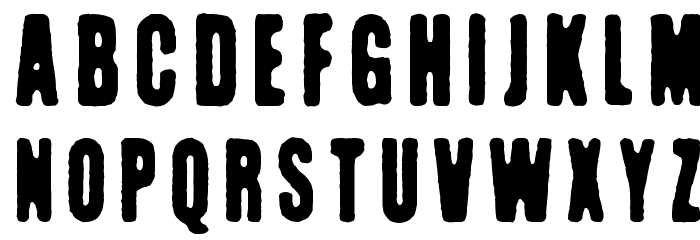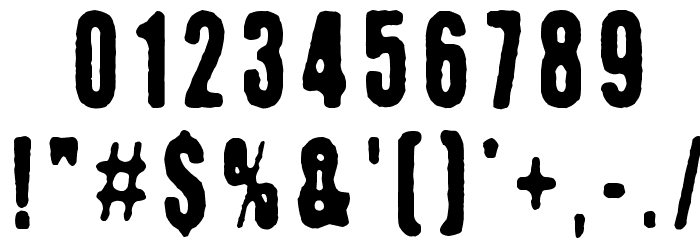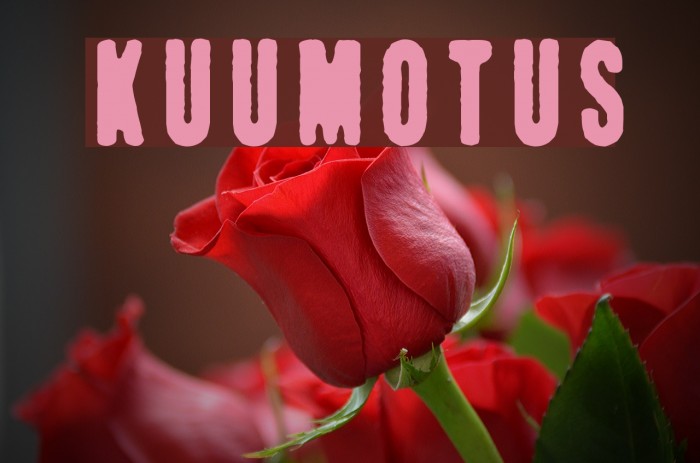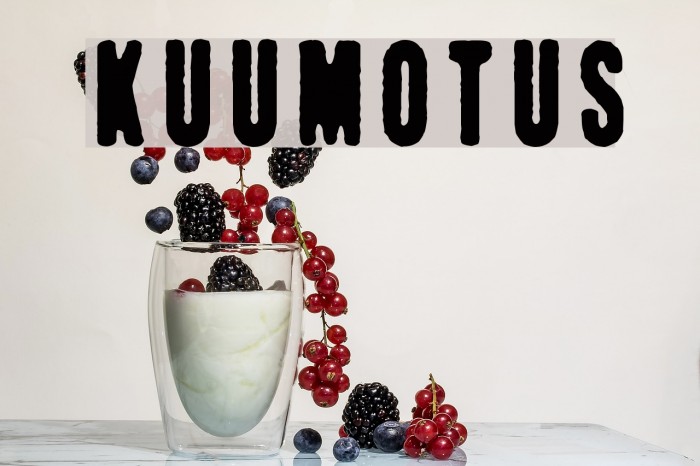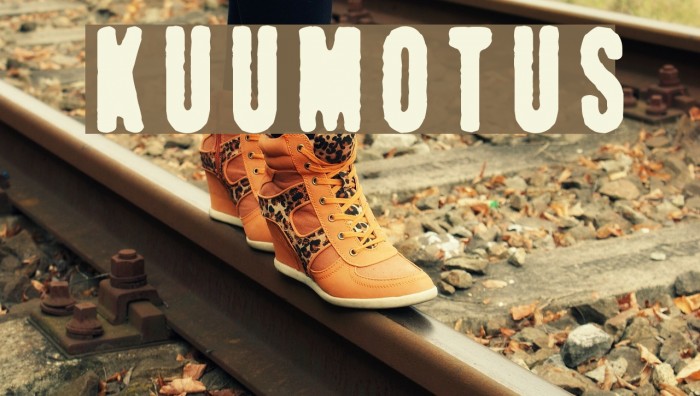
Kuumotus Font
This font features a bold and rugged style with a distressed texture that gives it a vintage, worn-out appearance. The characters are thick and heavy, with irregular edges that add to its rustic charm. The uppercase and lowercase letters maintain a consistent weight, while the numbers and special characters follow the same bold aesthetic. The font's design is reminiscent of old western or industrial signage, making it ideal for projects that require a strong, impactful visual presence.
A bold, distressed font with a vintage, rugged style.
- Proposed Projects: Ideal for vintage-themed posters, branding for rustic or industrial products, and signage that requires a bold, eye-catching look.
- Overall Style: Vintage